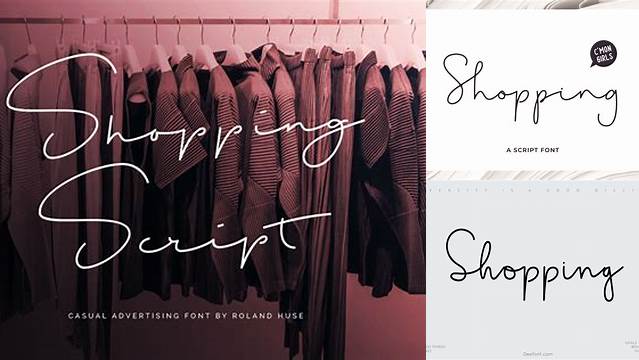
Free Shopping Script Font Generator: Create Stunning Designs
Hey there, design enthusiasts! If you're on the hunt for the perfect font to spice up your online store, create eye-catching social media posts, or add a touch of flair to your personal projects, then you've stumbled upon the right place. We're diving deep into the world of the shopping script font generator free options available, and trust me, there's a treasure trove of creativity waiting to be unlocked. Forget about shelling out big bucks for expensive fonts – we're talking about free tools that empower you to craft beautiful designs without emptying your wallet. Let's get started, shall we?
Exploring the World of Free Shopping Script Fonts
Shopping script font generators free are like your personal font design assistants. They allow you to experiment with different styles, customize your text, and see how your chosen script font will look in action. These tools are perfect for anyone looking to add a touch of elegance, personality, or a handcrafted feel to their design work. From creating stunning logos to crafting engaging marketing materials, a well-chosen script font can make a world of difference. We'll be exploring a variety of these generators, highlighting their unique features, and providing you with insider tips on how to make the most of them. Get ready to unleash your inner designer and elevate your projects to the next level. Isn't that exciting?
Unveiling the Best Free Shopping Script Font Generators
Top-Tier Online Shopping Script Font Generators
Alright, let's get down to business! Finding the right shopping script font generator free can be a game-changer for your design workflow. There are many online tools that offer a user-friendly interface and a vast library of script fonts. These generators often allow you to preview your text in real-time, adjust font sizes and styles, and download your customized fonts in various formats. What's even better is that most of them are completely free to use! Some popular generators offer advanced features like kerning and ligatures, enabling you to create professional-looking typography that stands out. Others provide options for personalizing fonts with custom colors and effects. When evaluating a generator, consider its ease of use, the variety of fonts available, the customization options, and the download formats. It's worth trying a few different generators to find the one that best suits your creative needs. With a little exploration, you'll quickly discover the perfect tool to bring your design visions to life. Cool, right?
Desktop Shopping Script Font Generation Software: Free Options
If you're a bit of a design purist and prefer more control over your shopping script font creation, there are also free desktop software options available. These programs often come with more advanced features than their online counterparts, offering a greater level of customization and control. While they might have a steeper learning curve, the results can be truly impressive. Many free desktop font editors allow you to create your own script fonts from scratch or modify existing ones. You can adjust every detail, from the stroke weight and serifs to the spacing and kerning. If you're serious about typography and want to delve into the nitty-gritty details of font design, exploring these desktop software options is a great idea. Plus, you can work offline, which is a huge advantage for those who want to design on the go. So, get ready to unleash your inner font designer and start experimenting! You might just surprise yourself with what you can create. Pretty awesome, huh?
Mobile Shopping Script Font Generators: On-the-Go Design
For those of you who are always on the move, the convenience of mobile shopping script font generators free is hard to beat. Many mobile apps offer a selection of script fonts and basic customization options, allowing you to create designs right from your smartphone or tablet. These apps are perfect for quick social media posts, on-the-go logo creation, or simply experimenting with different font styles. While they might not offer the same level of control as desktop software, they're a fantastic tool for quick edits and design inspiration. When choosing a mobile app, look for one with a user-friendly interface, a good selection of script fonts, and the ability to export your designs in a usable format. The ability to create designs anywhere, anytime is a game-changer. Isn't that cool? The world is your design studio with these handy apps.
Mastering Shopping Script Font Selection
The Psychology of Shopping Script Fonts: Choosing the Right Tone
Understanding the psychology behind script fonts is crucial for effective design. The right shopping script font can evoke specific emotions and associations in your audience. For example, elegant and flowing script fonts often convey sophistication, romance, and a touch of luxury. They're perfect for businesses looking to project a premium image. On the other hand, more playful and whimsical script fonts can create a sense of fun, approachability, and informality. These are ideal for brands that want to connect with a younger or more casual audience. Before choosing a script font, consider your brand's personality and the message you want to communicate. Research your target audience and think about the emotions and feelings you want to evoke. Choosing the right font can make or break your design's impact. It’s all about aligning the font's style with your message. You have to get that right.
Matching Shopping Script Fonts to Your Brand Identity
Your choice of a shopping script font generator free should align seamlessly with your overall brand identity. The font you choose is more than just a visual element; it's a part of your brand's personality. If your brand is all about elegance and sophistication, opt for a classic script font with clean lines and graceful curves. If your brand is more playful and youthful, you might consider a more whimsical script font with a unique flair. Think about the other design elements of your brand, such as your logo, color palette, and imagery. Your chosen font should complement these elements and create a cohesive brand experience. Consistency is key! The right font can amplify your brand's message and create a strong brand presence. Always try to keep your branding consistent across all of your platforms, so everyone knows what you are all about.
Combining Shopping Script Fonts with Other Fonts: Best Practices
Mixing and matching fonts can elevate your designs, but it requires a strategic approach. When pairing a shopping script font with other fonts, consider the contrast and visual harmony. Pair your script font with a simple, readable sans-serif font for headings or body text. This contrast will make your script font stand out and improve readability. Avoid using too many different fonts in one design, as this can create a cluttered and unprofessional look. Choose a limited number of fonts and use them consistently throughout your project. Experiment with different font pairings to find what works best for your specific design. There are many resources available online that offer guidance on font pairing and typography, so take advantage of them. The key is to create a balanced and visually appealing design. It's all about finding the right balance. The best way is to find what works for you and go with it!
Customizing Shopping Script Fonts with Generators
Adjusting Letter Spacing and Kerning for Perfect Typography
Shopping script font generator free tools often provide options for adjusting letter spacing and kerning. Kerning is the process of adjusting the space between individual letters to create a visually pleasing appearance. This is especially important with script fonts, as the letters often have unique shapes and curves that can create awkward spacing. Letter spacing, or tracking, refers to the overall space between all the letters in a word or phrase. By adjusting these settings, you can fine-tune your typography and create a more polished and professional look. Experiment with different settings to find what works best for your chosen font. Pay attention to how the spacing affects the overall readability and visual balance of your design. Mastering kerning and letter spacing is the secret to creating beautiful typography. Getting this right is essential for professional looking designs.
Adding Glyphs, Ligatures, and Swashes to Enhance Design
Many advanced shopping script font generator free tools allow you to add glyphs, ligatures, and swashes to enhance your designs. Glyphs are alternate characters that can be substituted for the standard characters in a font. Ligatures are special characters that combine two or more letters into a single character for a more elegant look. Swashes are decorative flourishes that can be added to the beginning or end of letters to add a touch of style. By utilizing these features, you can give your designs a unique and personalized touch. Experiment with different glyphs, ligatures, and swashes to see how they can enhance your chosen script font. These are the details that make your design stand out from the crowd. They can elevate the look of your designs and make them truly unique. It's all about attention to detail.
Customizing Colors, Outlines, and Effects in Generators
Most shopping script font generator free tools allow you to customize the colors, outlines, and effects of your script fonts. This is a fantastic way to personalize your designs and make them stand out. You can choose from a wide range of colors to match your brand's color palette or create a unique visual identity. Adding outlines can make your font more visible and add a touch of style. You can also apply various effects, such as shadows, gradients, and textures, to give your font a unique look. Experiment with different combinations of colors, outlines, and effects to see how they transform your design. The possibilities are endless. The best way is to try and experiment with different combinations. These are the features that can take your designs to the next level. It’s all about being creative!
Using Shopping Script Fonts in Different Design Projects
Creating Stunning Logos with Shopping Script Fonts
Shopping script font choices can play a pivotal role in crafting compelling logos. Logos are often the first impression a brand makes, so choosing the right font is essential. A script font can add elegance, sophistication, or a touch of personality, depending on the style. Consider the message you want to convey and choose a script font that aligns with your brand's identity. Experiment with different layouts and customizations to create a unique and memorable logo. Remember to keep it simple and recognizable. The goal is to create a logo that resonates with your audience and represents your brand effectively. A well-designed logo can set you apart from the competition and build brand recognition. Think about companies like Coca Cola or Instagram, who use script fonts in their logos. They are very recognizable.
Designing Engaging Social Media Graphics with Script Fonts
Social media is a visual platform, and using the right fonts is key to grabbing attention. A shopping script font generator free can be used to create engaging social media graphics. Use script fonts to create eye-catching headlines, quotes, or call-to-actions. Choose a script font that complements your brand's visual style and makes your graphics more appealing. Experiment with different layouts, colors, and effects to make your social media posts stand out. Remember to keep your text concise and easy to read. Consider using a contrasting font for the body text to enhance readability. In a world filled with content, a unique and well-designed social media graphic can make a big difference. These design techniques are useful to get more engagement on social media. So get creative and let your designs do the talking.
Incorporating Script Fonts into Website and Blog Designs
Using script fonts on your website or blog can add a touch of elegance and personality to your online presence. However, it's important to use them strategically for maximum impact. Use a shopping script font for headlines, subheadings, or call-to-actions to draw attention to key elements. Make sure your script font complements your website's overall design and branding. Balance the script font with a readable font for the body text to ensure readability. Avoid using script fonts for large blocks of text, as they can be difficult to read. The goal is to create a visually appealing and user-friendly website that engages your visitors. Remember that readability is paramount. Websites are about communicating, and the design must help you do that. Choose fonts that help you get your message across clearly and effectively. So, go for it and see how it goes!
Free Tools and Resources for Script Font Design
Websites and Platforms Offering Free Script Fonts
The internet is a treasure trove of free script fonts, but you have to know where to look. Several websites and platforms offer a wide selection of free fonts, including script fonts. Some popular choices include Google Fonts, DaFont, and Font Squirrel. These websites typically offer a diverse range of fonts, including various script styles. Before downloading a font, always check the licensing terms to ensure that you're allowed to use it for your intended purpose. Remember that some free fonts are only licensed for personal use. Explore these platforms and discover the perfect free script font to elevate your design projects. It's an incredible opportunity to discover awesome free fonts. Get creative and create your own designs. So many great options! Try them out!
Tutorials and Guides for Mastering Script Font Design
If you're looking to level up your font design skills, there are numerous tutorials and guides available online. These resources can help you understand the nuances of script font design, from choosing the right font to mastering the art of kerning and letter spacing. Many design blogs and YouTube channels offer tutorials on font design. Whether you're a beginner or an experienced designer, these resources can provide valuable insights and tips. These tutorials will show you how to make the most of your free shopping script font generator tools and create stunning designs. Keep learning, and keep designing. You can do it. Don't be afraid to experiment and express yourself. Learning is fun, and you get to do it by being creative. That is a great way to learn!
Design Communities and Forums for Inspiration and Feedback
Joining a design community or forum can provide you with a wealth of inspiration, feedback, and support. These online communities bring together designers from all backgrounds and skill levels. You can share your work, get feedback, and learn from other designers' experiences. Platforms like Behance, Dribbble, and Reddit (subreddits dedicated to design) are great places to connect with other designers. Participating in design communities is a fantastic way to improve your skills and gain valuable insights into the design process. It's also a great way to stay up-to-date with the latest design trends and best practices. Community support can also help with any questions you have. It's always nice to have support and the ability to connect with others. This is a great option for you!
Troubleshooting Common Issues with Free Generators
Dealing with Download and Compatibility Problems
Sometimes, you might encounter download or compatibility issues when using a shopping script font generator free. Make sure the font you download is compatible with your operating system and design software. Check the file format (e.g., TTF, OTF) and ensure that it's supported by your tools. If you're having trouble downloading a font, try a different browser or internet connection. You might also need to check your download folder and ensure that the file hasn't been blocked by your security settings. If the font doesn't install correctly, try restarting your computer or reinstalling your design software. There are a lot of easy solutions to common problems. If you search online, you will find most of them. The key is to be patient and try different solutions.
Addressing Readability and Font Display Issues
Readability and font display issues can sometimes occur when using script fonts. Script fonts can be challenging to read if used in the wrong context. Make sure your script font is legible, especially at smaller sizes. Avoid using script fonts for large blocks of text or body text. Ensure that the font is rendering correctly on all devices and browsers. You can use browser developer tools to inspect the font rendering. If you have any display issues, try clearing your browser cache or updating your graphics drivers. Remember that some fonts look different across devices and browsers. Troubleshooting is essential. You've got this! Try the simple solutions first, and if that doesn't work, try something a bit more advanced. You can do it!
Resolving Copyright and Licensing Concerns
Copyright and licensing are critical when using free script fonts. Always check the font's license before using it for commercial projects. Some free fonts are only licensed for personal use. Make sure you understand the terms of use and respect the font designer's rights. If you're unsure about a font's licensing, it's best to contact the designer or consult with a legal professional. Avoid using fonts that you don't have the right to use, as this can lead to legal issues. Respecting copyright is essential for maintaining ethical and legal design practices. When it comes to fonts, always make sure you know the rules. Read carefully, and you'll be set! Nobody wants to go to court, so make sure you follow the rules.
The Future of Free Shopping Script Font Generation
Emerging Trends in Shopping Script Font Design
Keep your eye on the latest trends in shopping script font design. New trends emerge all the time, so staying updated can help you stay ahead of the curve. Some emerging trends include the use of variable fonts, which offer more flexibility and customization, and the integration of AI tools to assist with font design. The rise of handcrafted and organic fonts, with a focus on authenticity and uniqueness, is another important trend. As technology advances, we can expect even more innovative tools and features in the world of font design. Design is constantly evolving, so stay updated. There are always new things to learn! These are exciting times in the design world. Stay tuned, and you will get inspired.
Innovations in Free Generator Technology and Features
The future of free shopping script font generator technology is bright. We can expect to see more advanced features and capabilities in these tools. This includes the incorporation of AI-powered features that can automatically generate font variations, and the ability to customize fonts with greater precision and control. Expect more integration with other design tools and platforms, as well as more user-friendly interfaces. These innovations will empower designers to create even more stunning and unique typography. The future is all about innovation and making things easier and more fun. So, look forward to seeing more amazing things! It's only going to get better. You will have more options and design capabilities than ever before.
The Impact of Free Generators on Design Accessibility
Free shopping script font generator tools have democratized the design process. They have made it easier than ever for anyone to create professional-looking designs, regardless of their budget or experience. These tools have removed barriers to entry, allowing aspiring designers and small businesses to create beautiful typography without incurring the high costs of professional font licenses. Free generators have also fostered creativity and experimentation, inspiring more people to explore the world of design. Because it’s free, it gives more people the ability to experiment and explore the possibilities of design. The future of design is inclusive. With the power of technology, anyone can have a voice. Free tools are transforming the landscape of design. Isn't that great? This allows for everyone to participate in the design world.